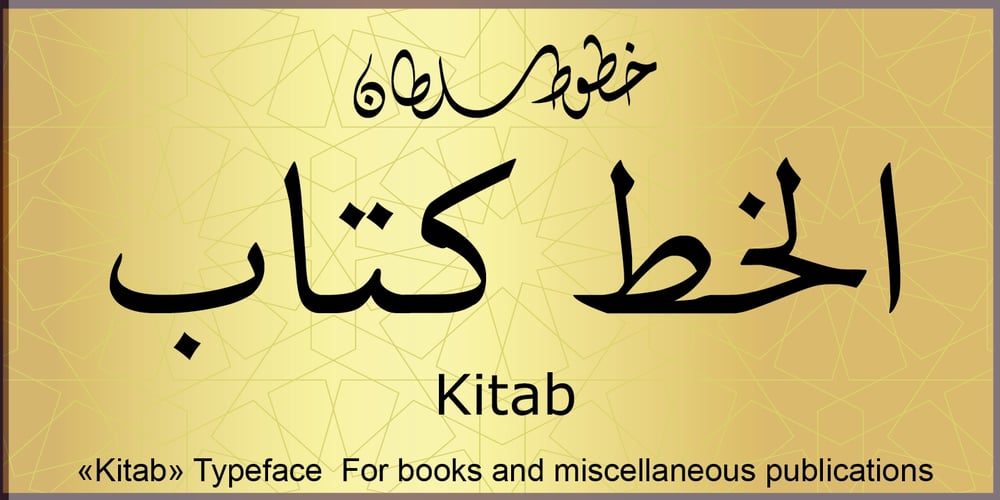
SF Kitab
SF Kitab font
SF Kitab Font Family was designed by Sultan Maqtari and published by Sultan Fonts. SF Kitab contains 2 styles and family package options. SF Kitab is An Arabic typeface for desktop applications. The font is dedicated for printing diverse books and publications. SF Kitab is clear and the reader feels comfortable reading long texts. It is contains two weights: normal and bold. This font supports Arabic, Persian and Urdu.